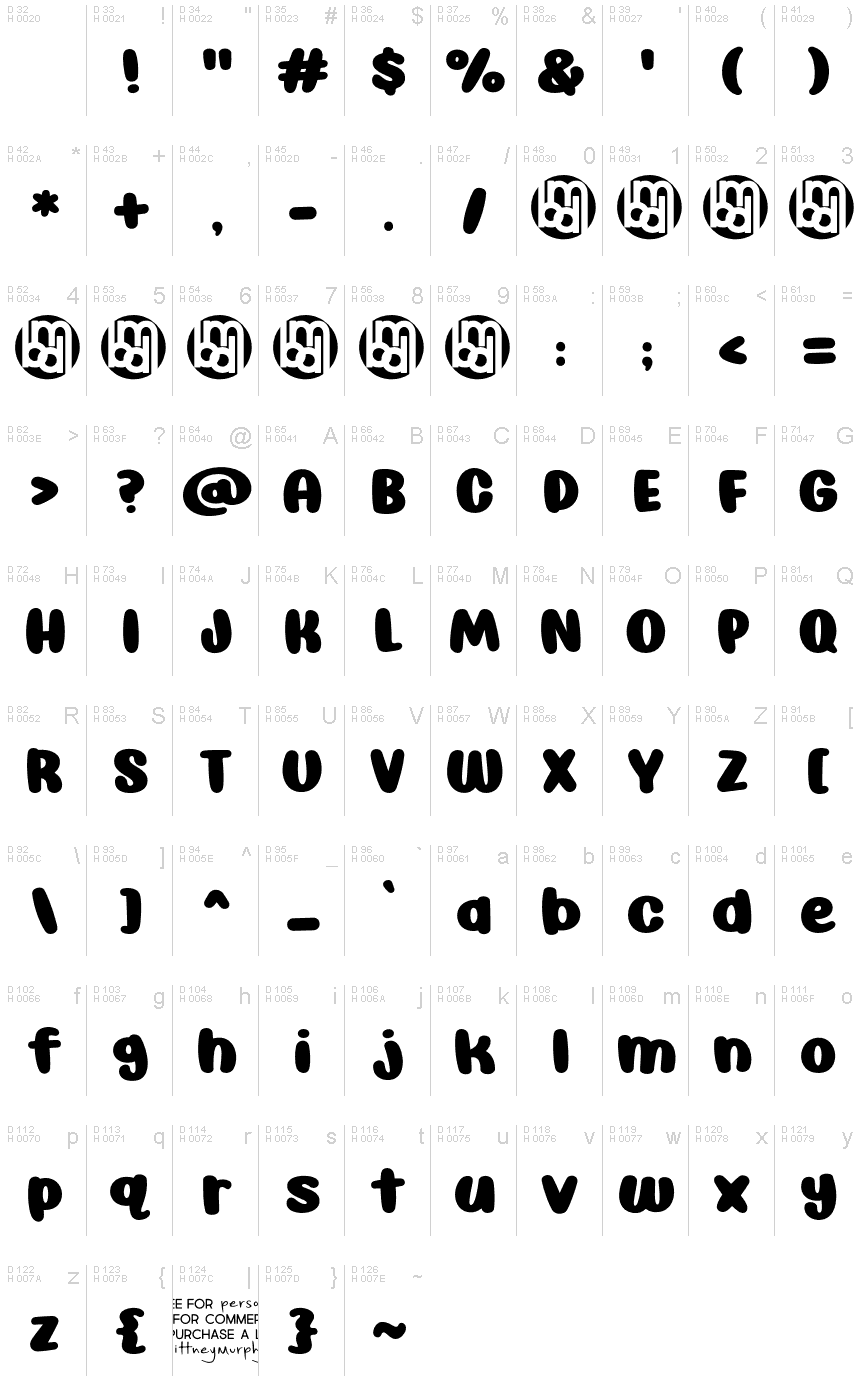
AwesomePossumDemo-Regular
Awesome Possum font is a bold cartoon typeface designed by Brittney Murphy Design.
Awesome Possum is a fun cartoon font from Brittney Murphy Design! Great for kids' projects. :)